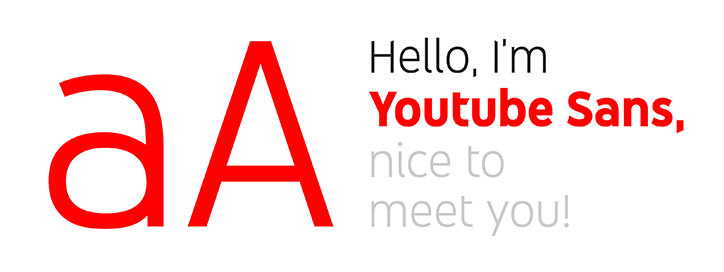
YouTube releases new typeface to coincide with live streaming offering
American video sharing company, YouTube, has released its own typeface, YouTube Sans, inspired by the brand’s widely-recognised play button. The launch comes as the company announces the arrival of YouTube TV, its own paid-monthly live TV streaming service. The font, designed to showcase YouTube’s expressive qualities, marks an upsurge in own-brand letterforms. Harnessing typography in its own way, the release also features a refined play button glyph, allowing for the brand icon to be typed as a symbol.
Undertaking the project, global design agency and brand consultants, Saffron, developed the typeface in collaboration with YouTube’s UX team, with the aim of reinforcing the brand aesthetic and bringing to life the distinctive, user-friendly features inherent to the video sharing platform. In addition, YouTube’s well-known play button was redrawn to perfect its curved, angular shape in line with the new sans-serif typeface.
Yet the resurgence of sans-serif as a principle typeface has complimented a reinvigoration of numerous brand identities in recent times. Top flight companies such as eBay, Lloyds, Yahoo and most recently Google, have all departed from traditional serif typefaces to adopt the minimalism of clean, bold and distinctive sans. Yet YouTube’s own typeface takes its brand offering one step further, following a recent trend that has seen many brands expand on the principles of a core aesthetic that aligns user-experience, wider social integration and brand portfolios together.